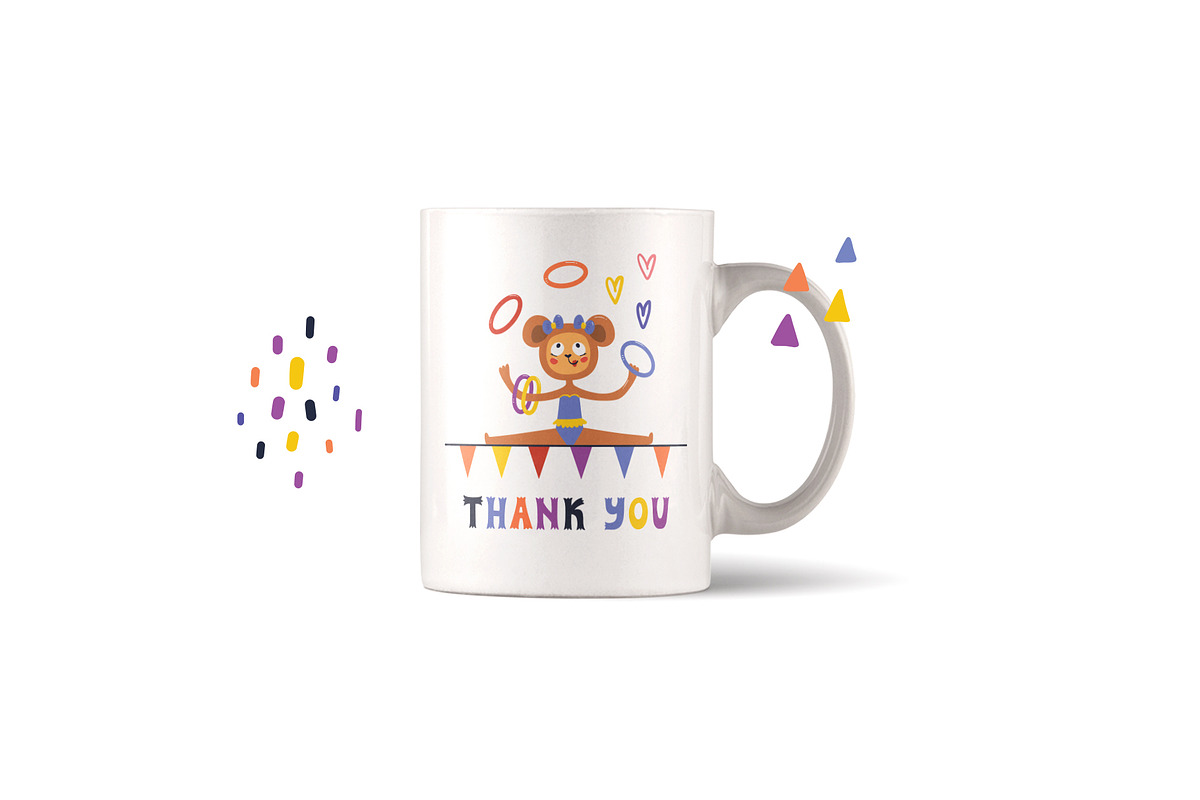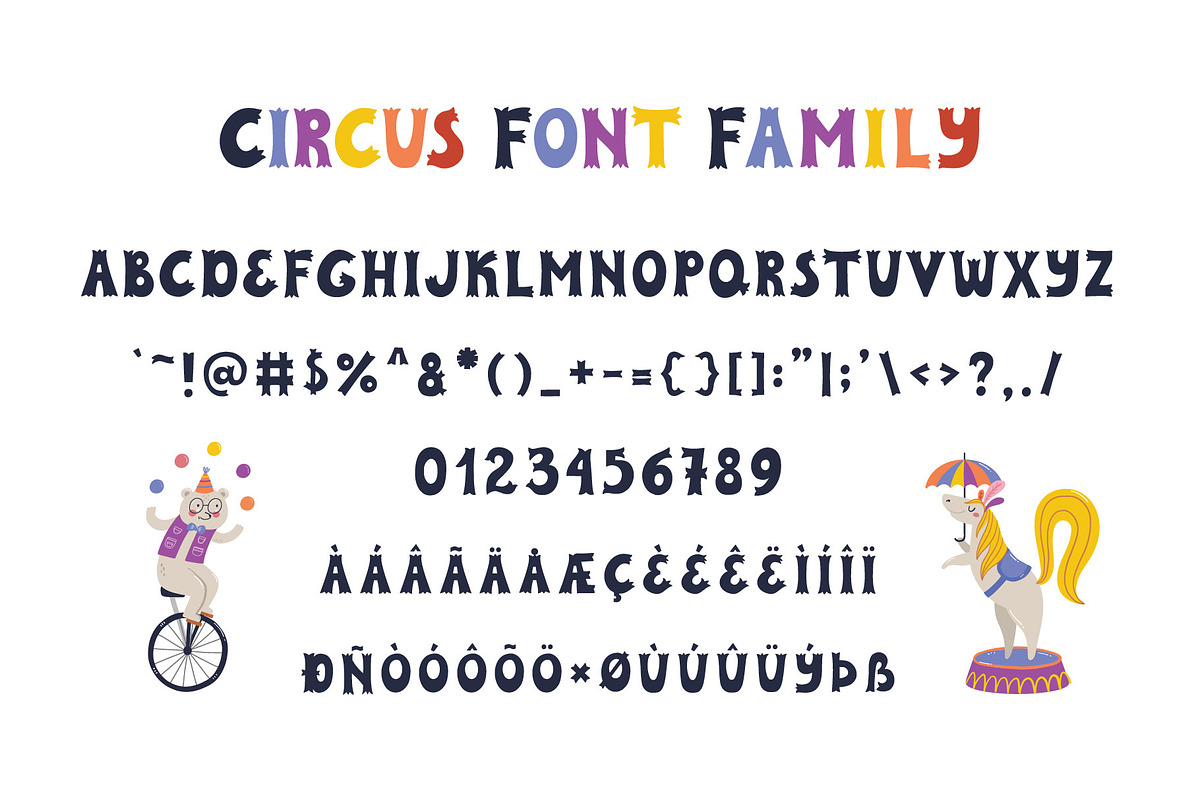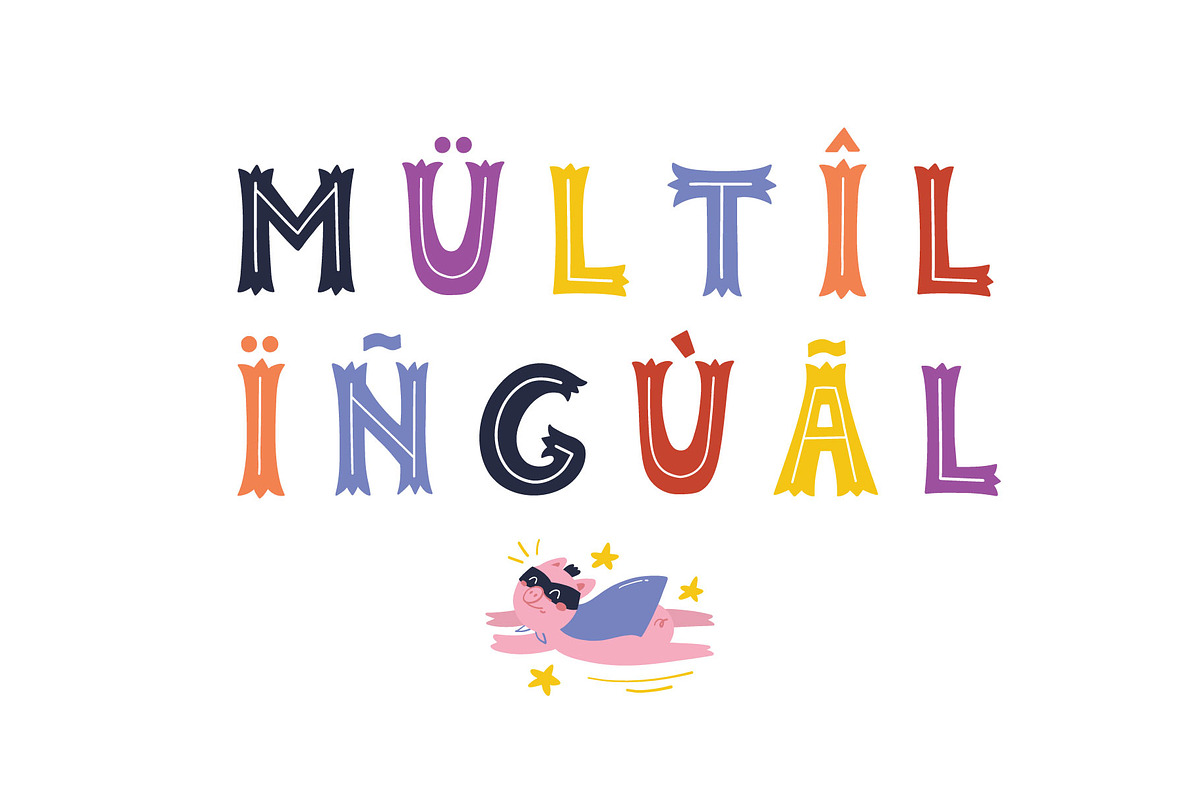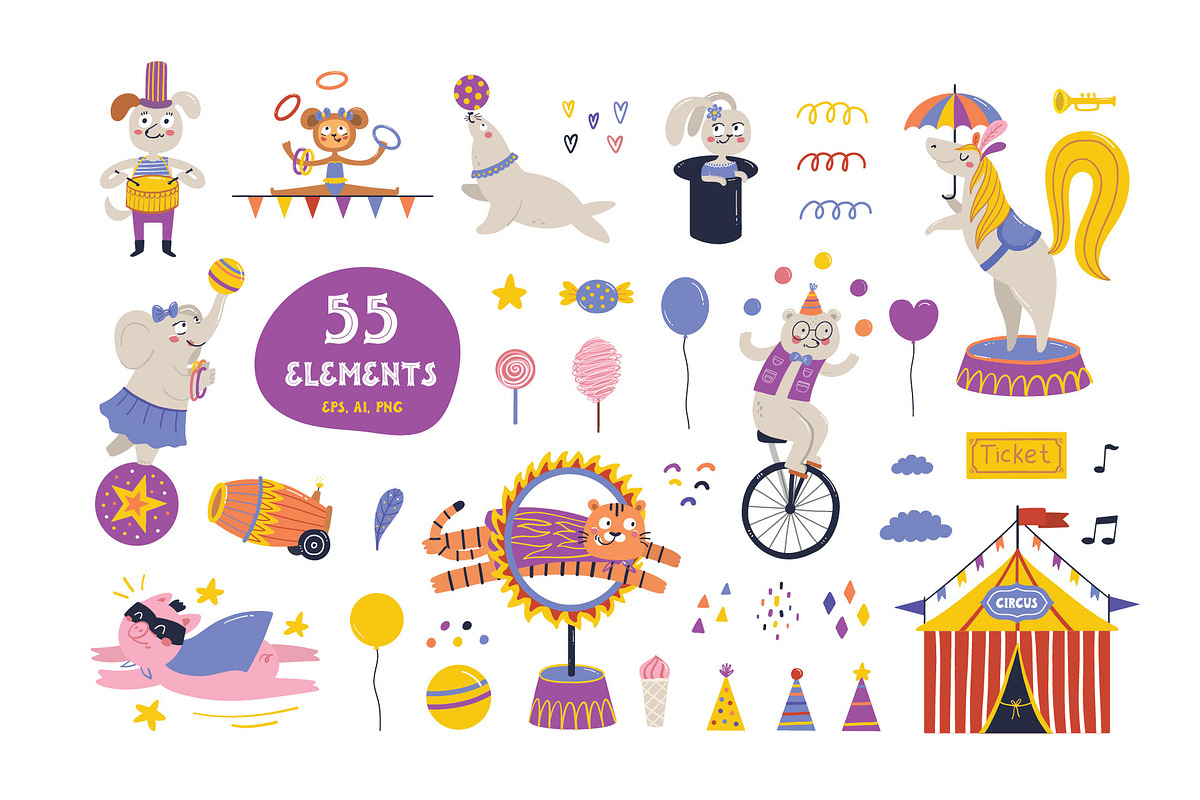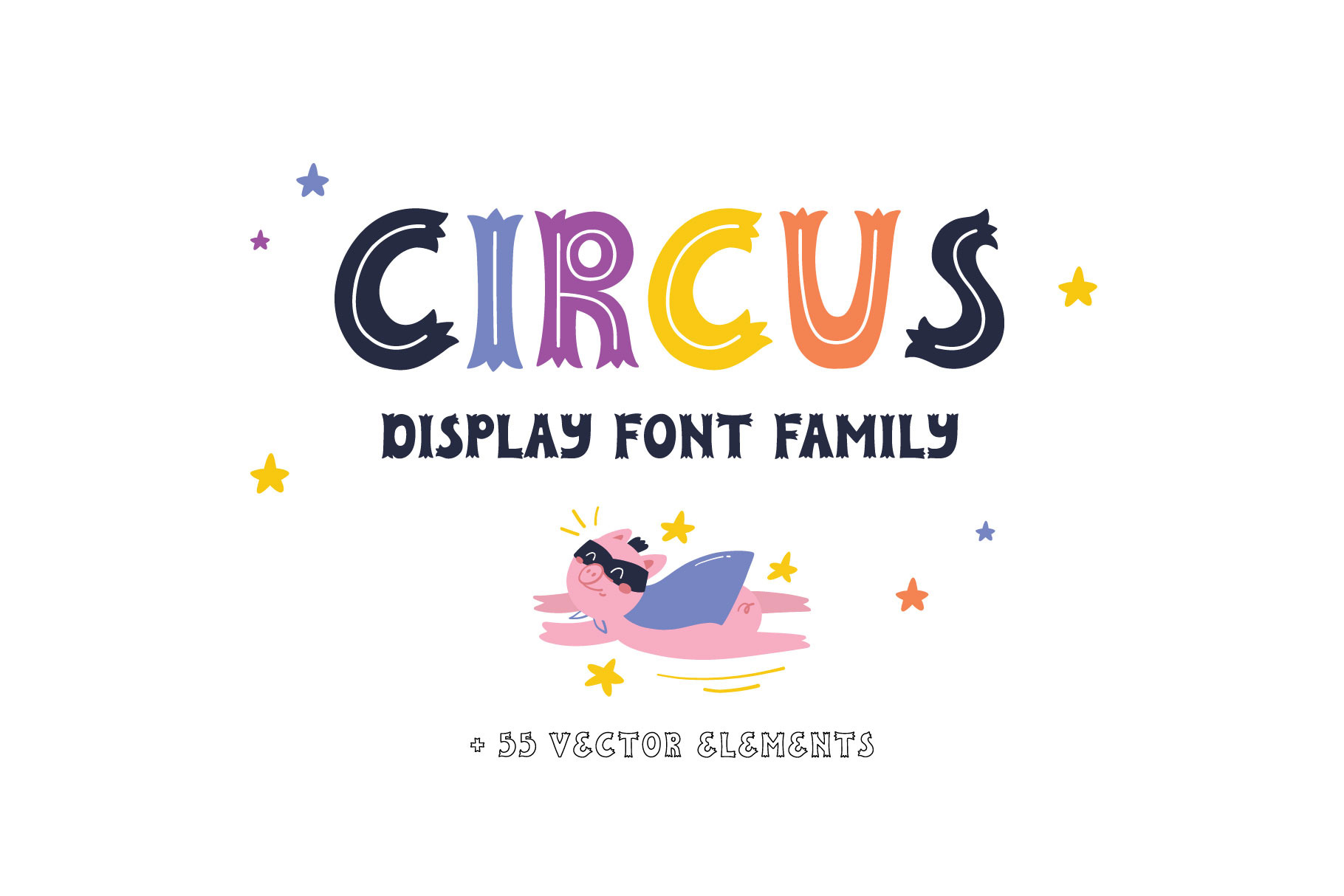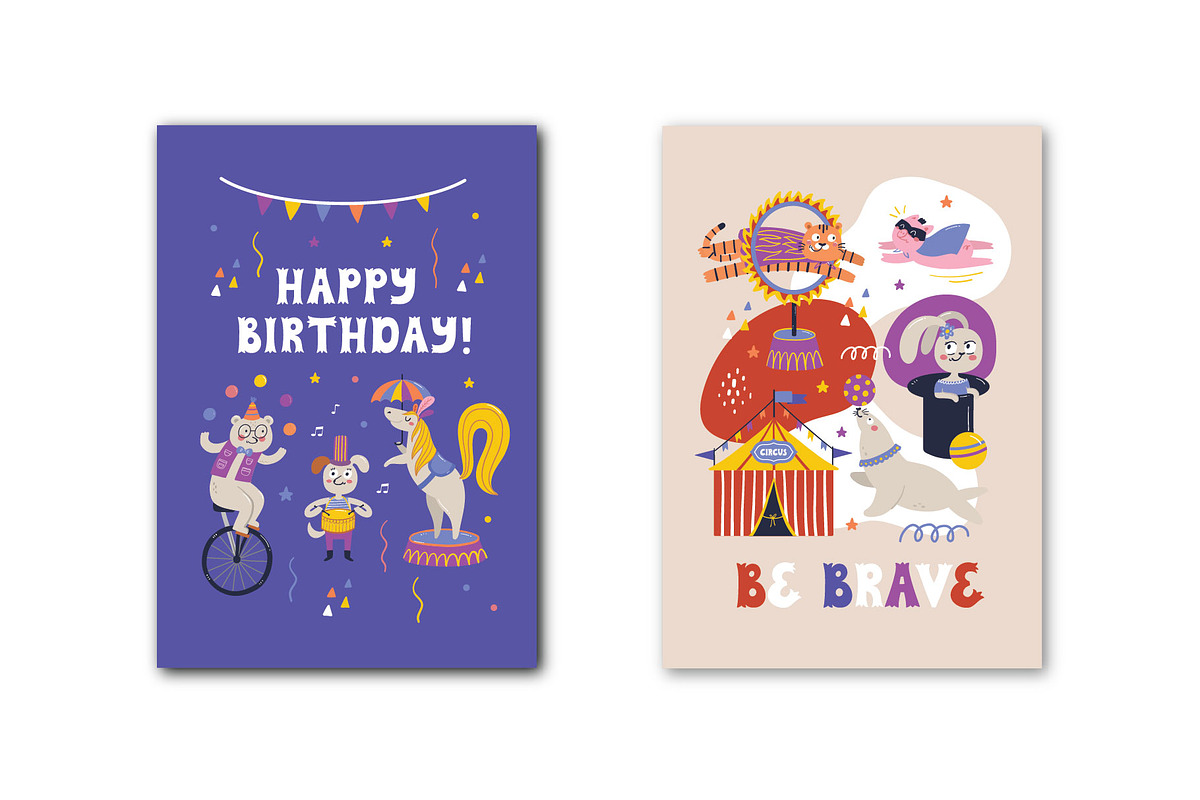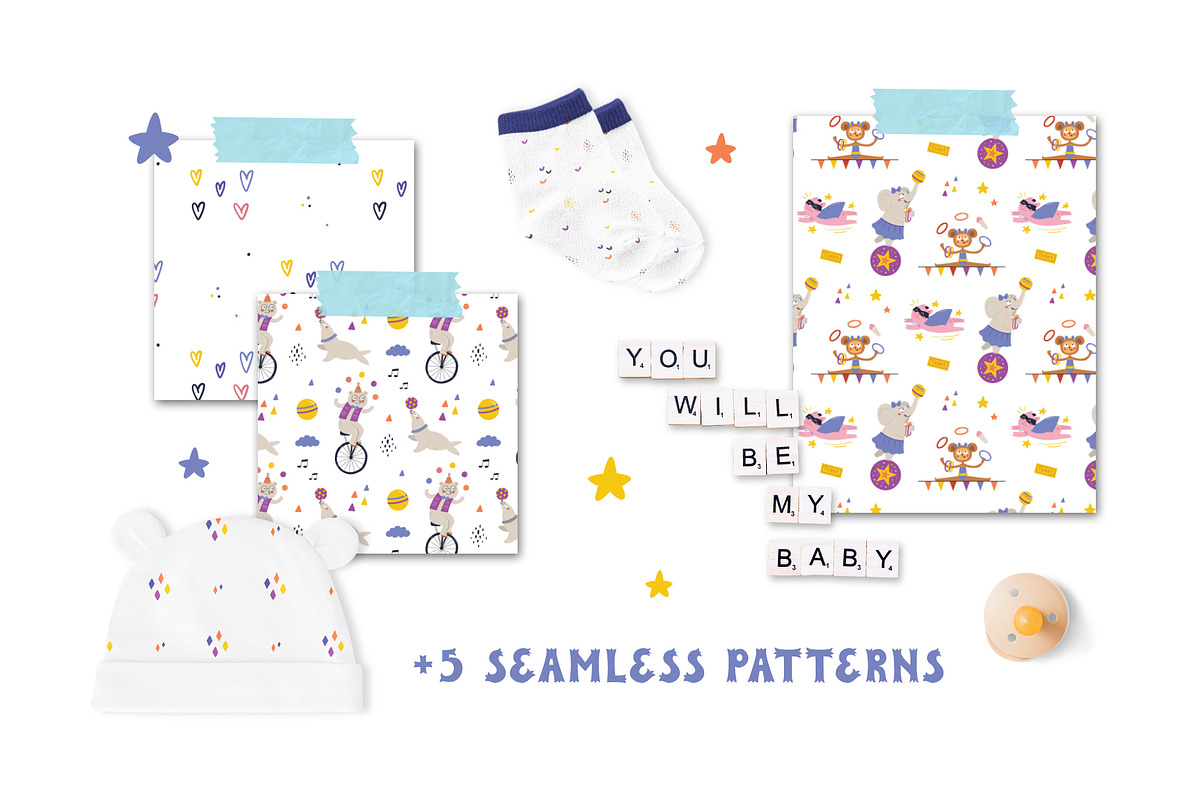
Circus font and clipart
This amazing font includes 3 types of font writing and makes up a whole font family. I also added cute circus animals and a lot of colorful additional elements to the set, with which you can make a unique bright design.
The font is ideal for creating festive design of postcards, posters, children's products, covers, children's clothing and much more!